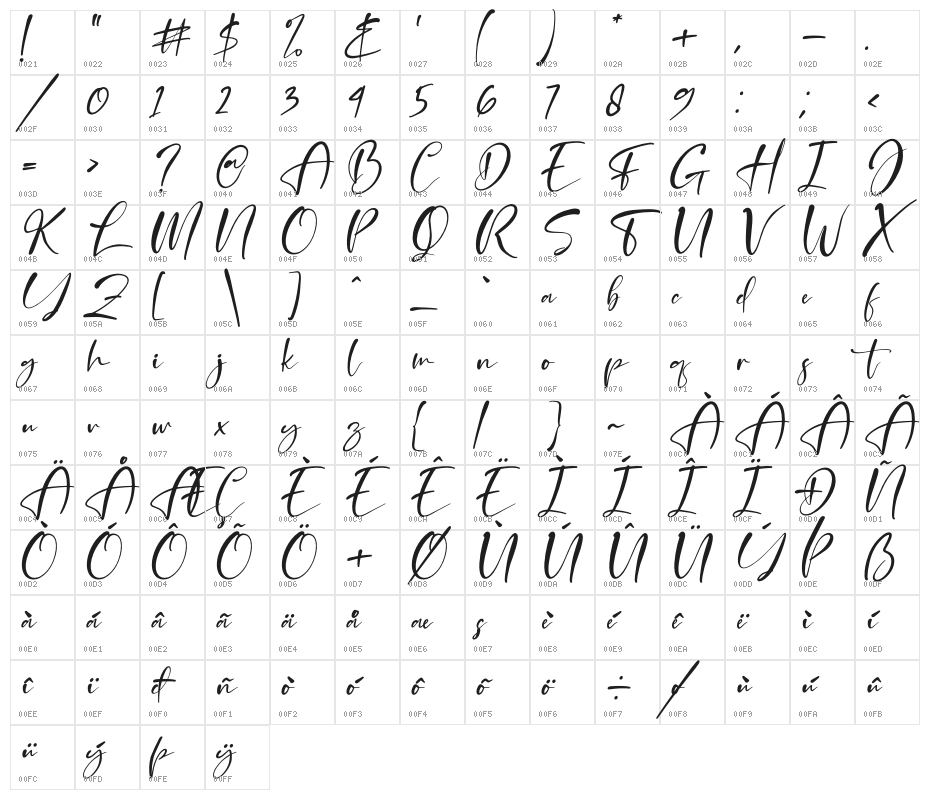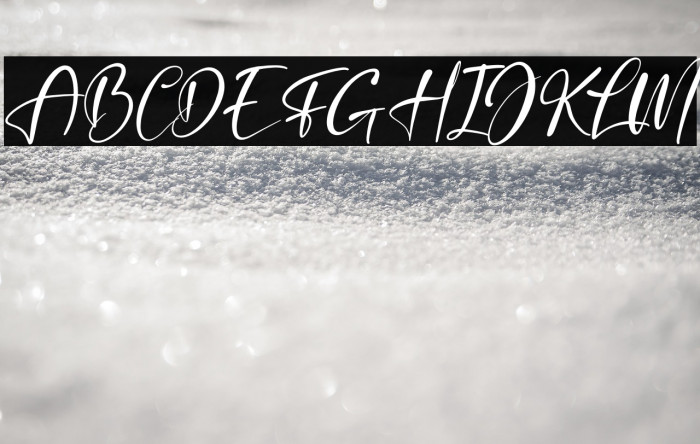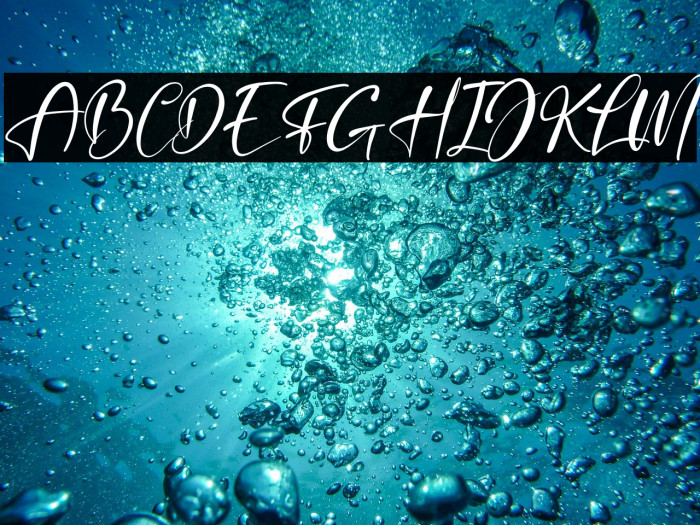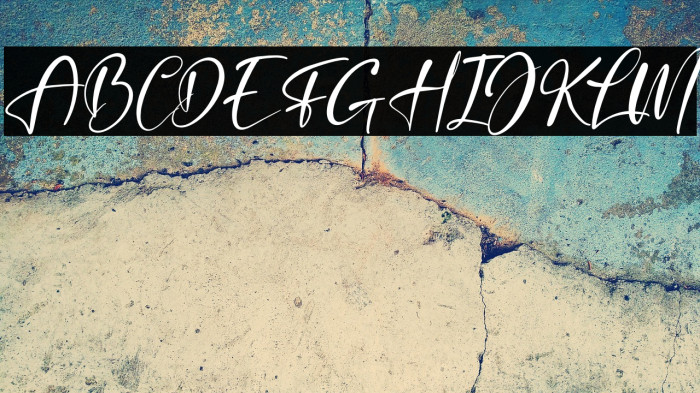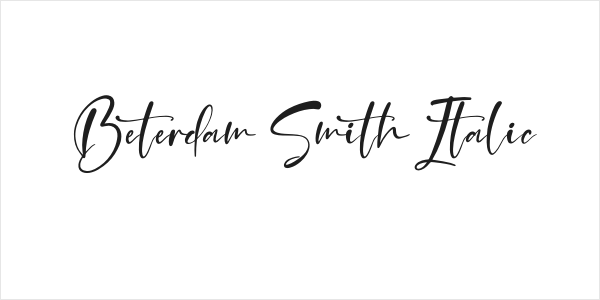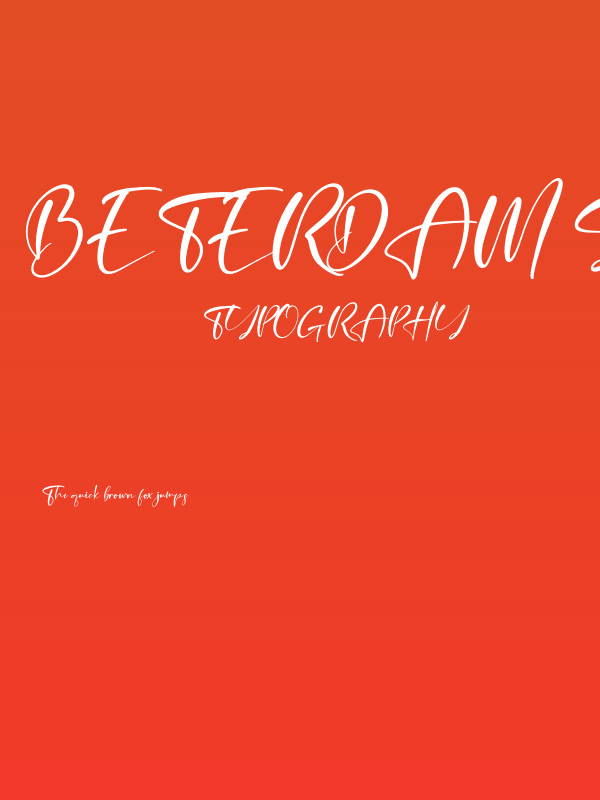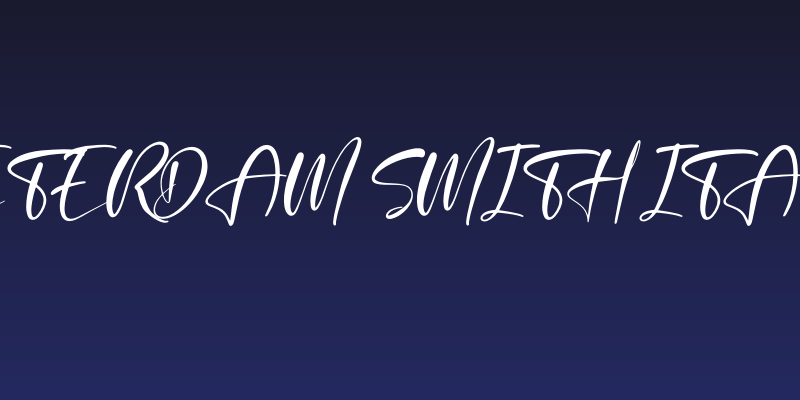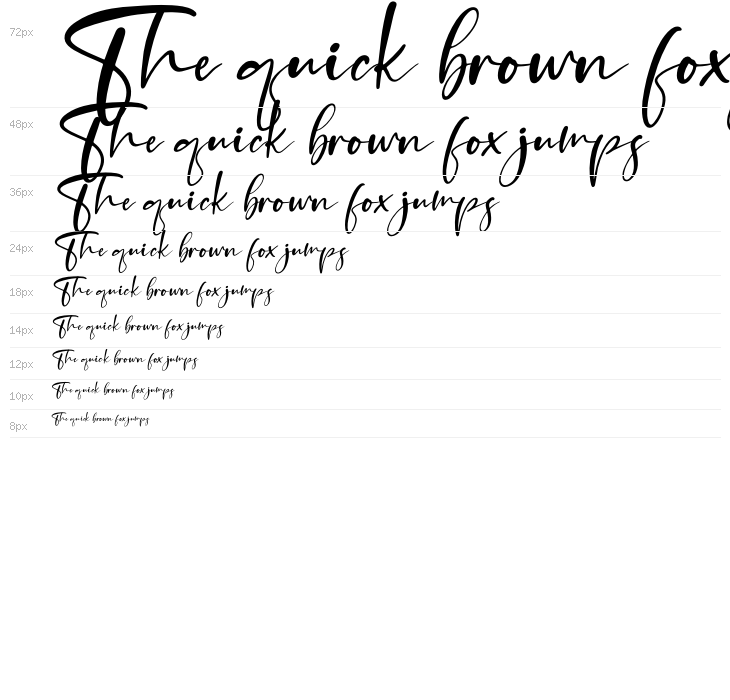
Beterdam Smith Italic Font
Beterdam Smith Italic Description
This font exudes a dynamic and flowing script style, characterized by its elegant and cursive letterforms. The uppercase letters are bold and sweeping, with a distinctive slant that adds a sense of motion and grace. The lowercase letters maintain a consistent fluidity, enhancing the overall aesthetic with their smooth, connected strokes. Numbers and special characters are crafted with the same attention to detail, ensuring a cohesive look across all elements. The font's artistic flair makes it ideal for creative projects that require a personal touch.